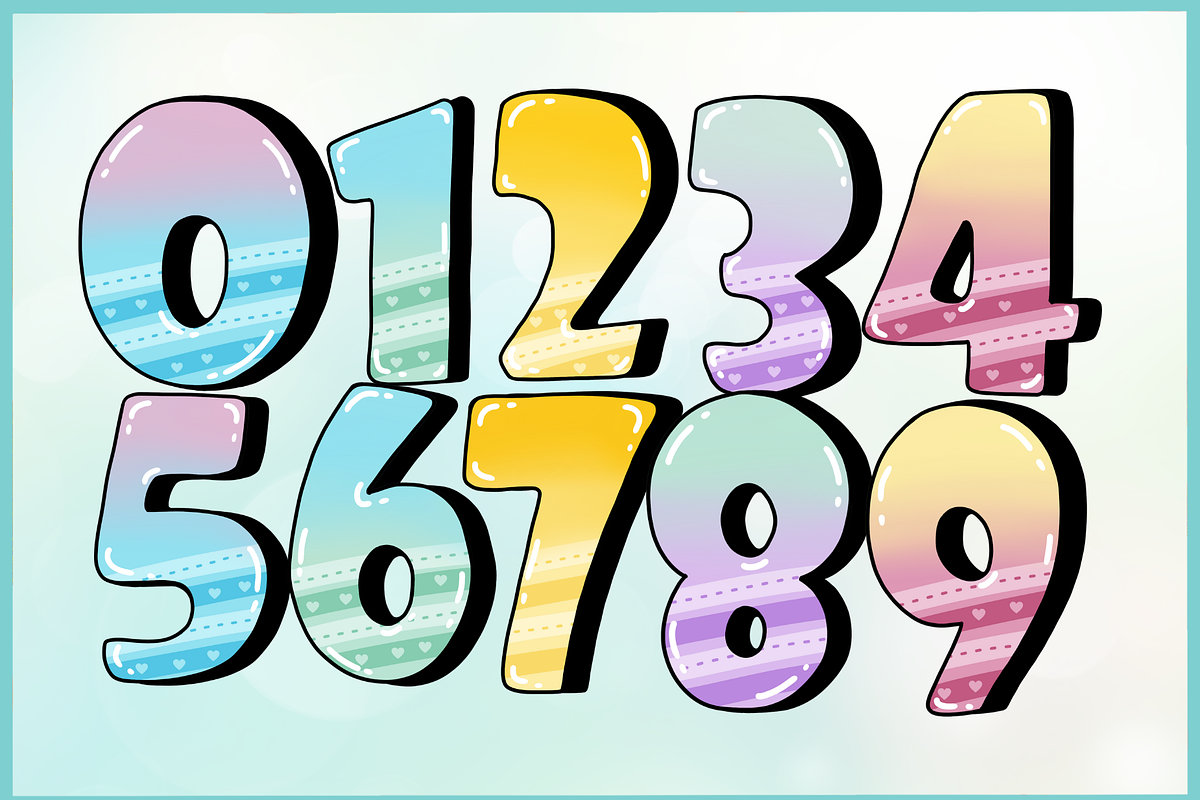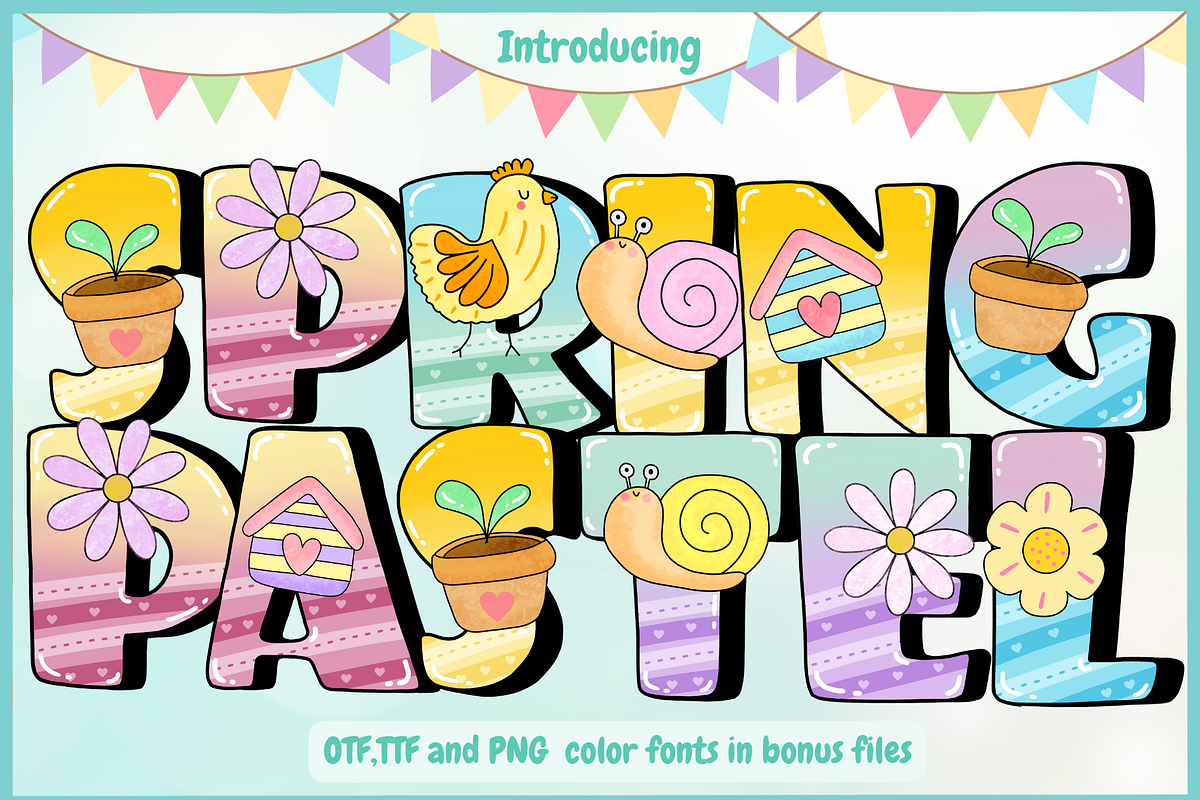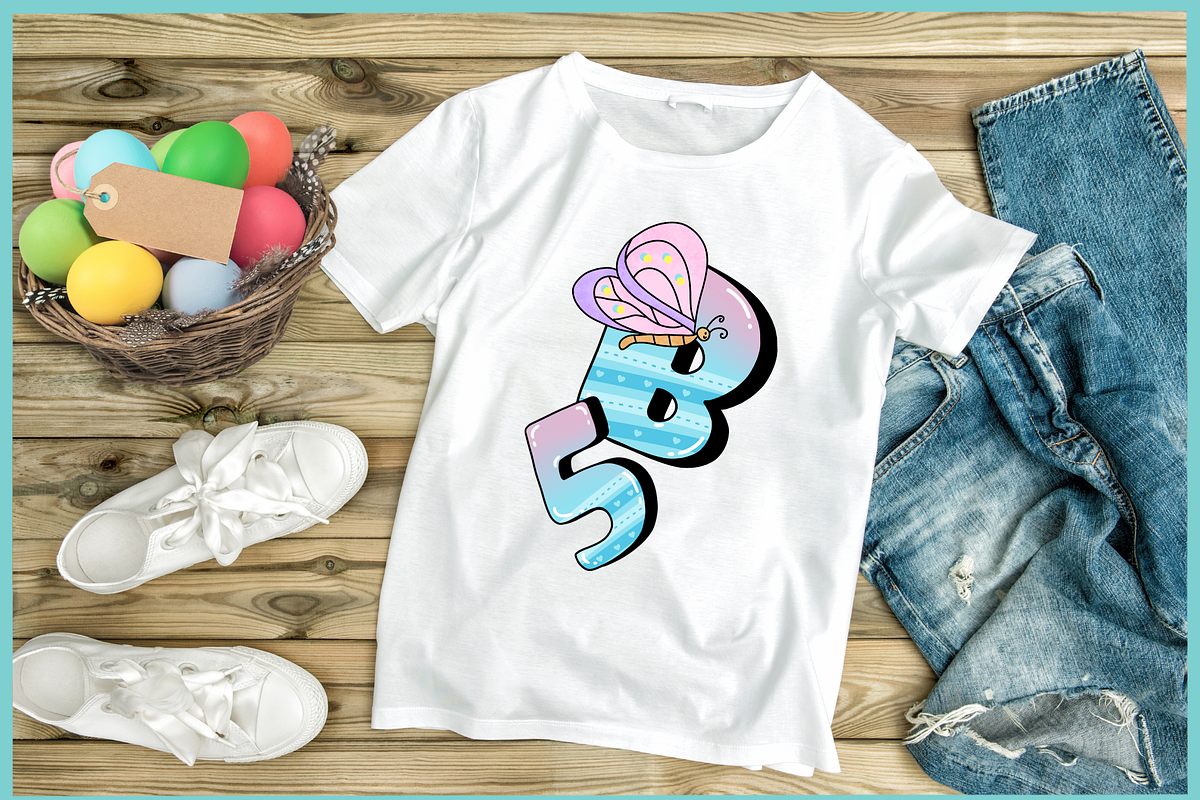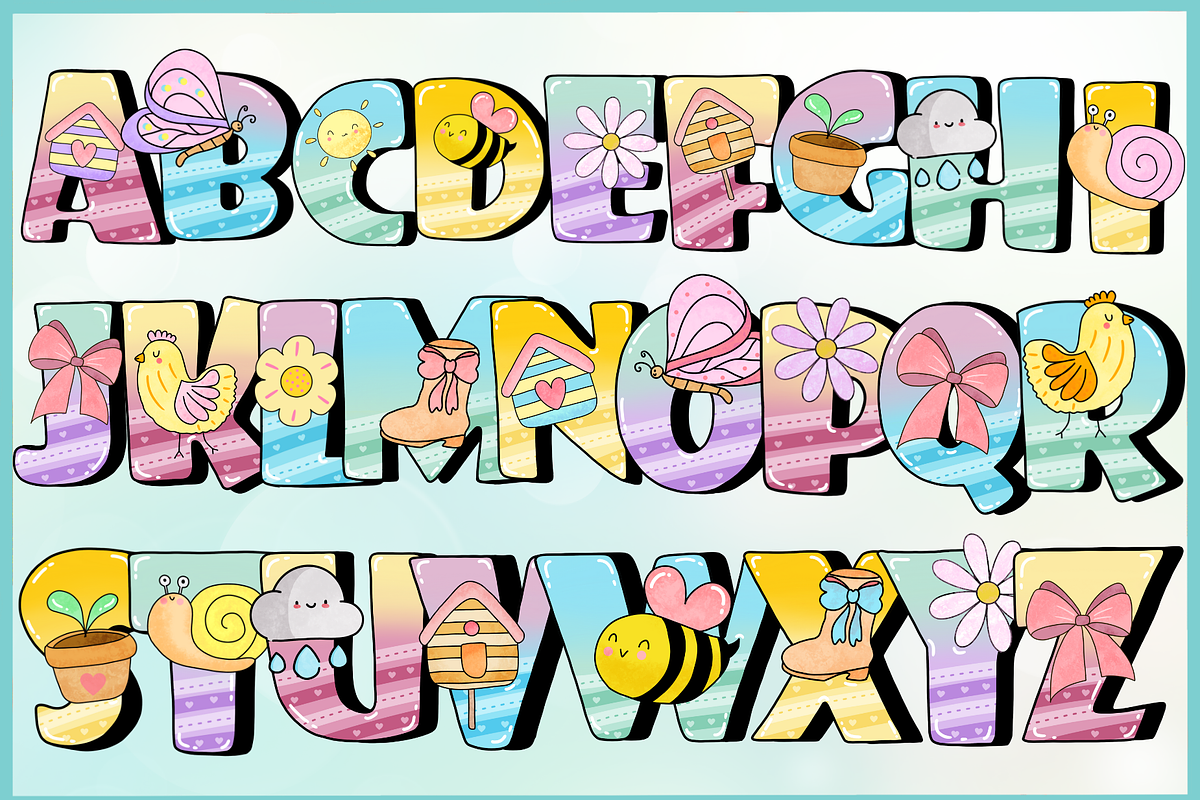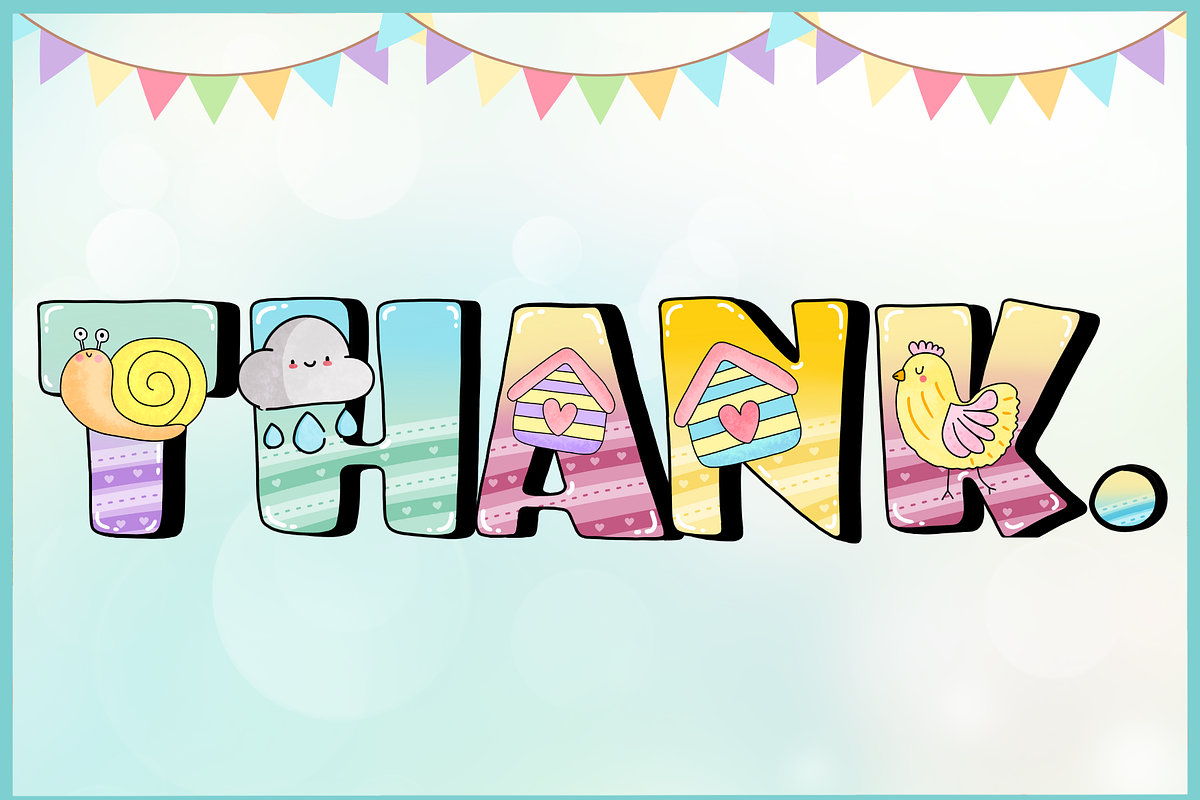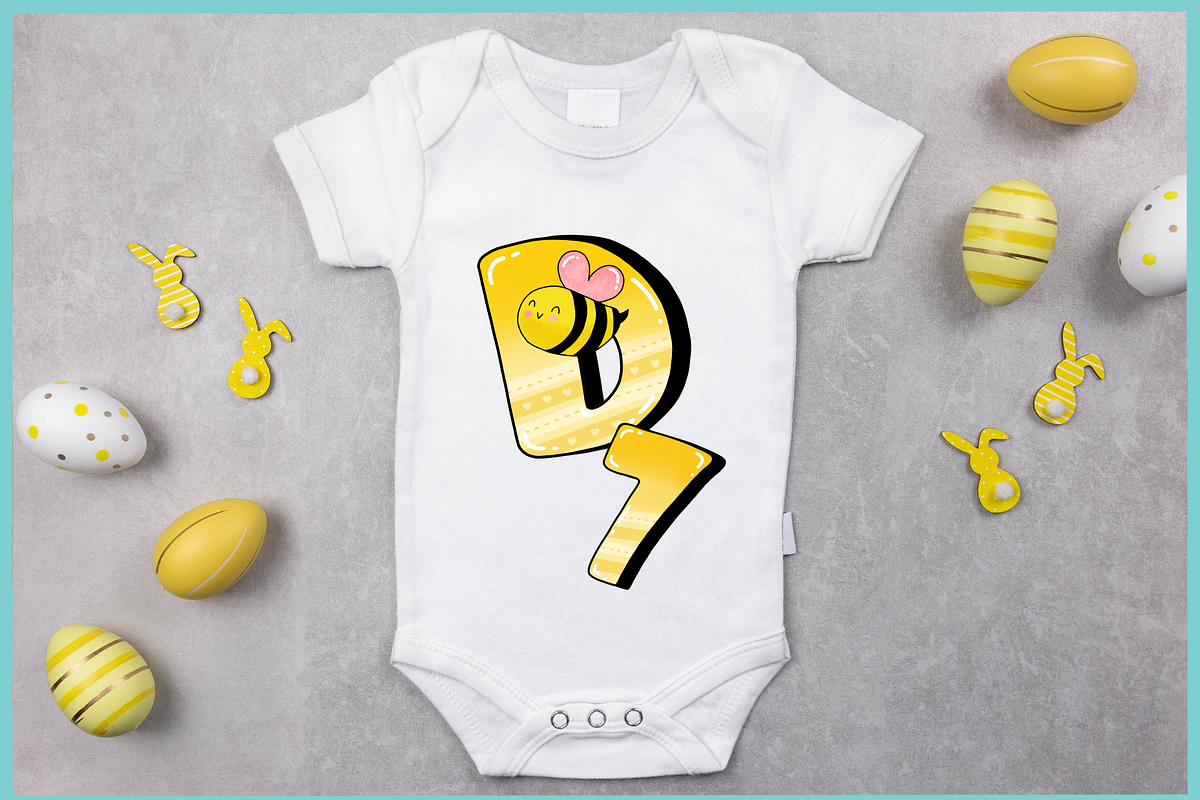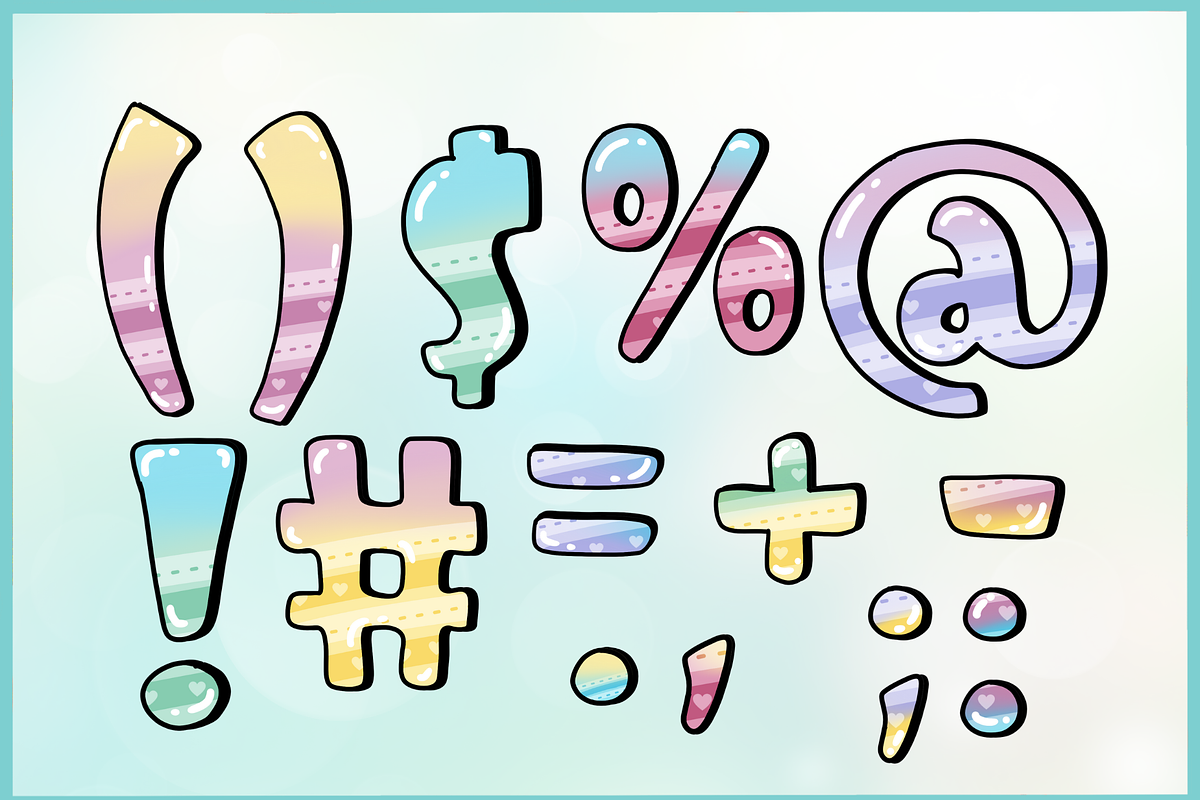
Spring Pastel-PNG fonts
Spring Pastel is a delightful display font inspired by the joy of springtime! With hand-drawn elements like flowers, snails, plants, and cheerful patterns, this playful font is perfect for kids’ projects, greeting cards, seasonal crafts, and creative branding. Available in OTF, TTF, and PNG formats, it adds a fun and whimsical touch to any design.
Full Alphabet: A-Z characters decorated with unique spring doodles.